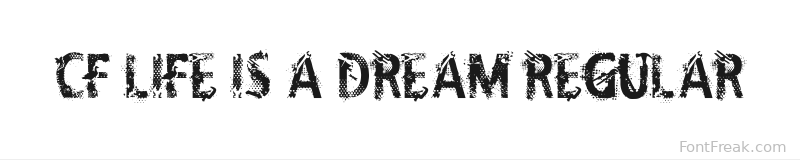
CF Life Is A Dream Regular
CF Life Is A Dream Regular is a unique display font designed by Cloutierfontes, falling within the decorative category. This font features a distinct, slightly distressed aesthetic, characterized by its irregular stroke weight and organic forms that evoke a sense of spontaneity and artistic flair. The visual characteristics include a playful contrast between thick and thin strokes, which adds depth and personality to the typeface. The spacing is thoughtfully designed to maintain readability while enhancing its whimsical charm, making it suitable for various creative applications.
This font excels in use cases such as wedding invitations, where its enchanting style can beautifully convey romance and elegance. It’s also perfect for movie posters, capturing attention with its artistic flair and evoking a sense of excitement. Restaurant menus can benefit from its distinctive look, helping to create a memorable dining experience that reflects a unique culinary theme. Additionally, it serves well in social media graphics, allowing content creators to add a touch of creativity and personality to their posts.
Targeted towards graphic designers, small business owners, and content creators, CF Life Is A Dream Regular offers versatility and a unique aesthetic that can elevate any project. Its charming characteristics make it an ideal choice for those looking to stand out in a crowded marketplace.
What sets CF Life Is A Dream Regular apart is its ability to blend creativity with functionality. It strikes a balance between artistic expression and readability, making it a fabulous choice for anyone seeking a font that embodies both style and substance. For those interested in incorporating this captivating typeface into their work, the CF Life Is A Dream Regular font free download is readily available, offering an accessible way to enhance your design projects.